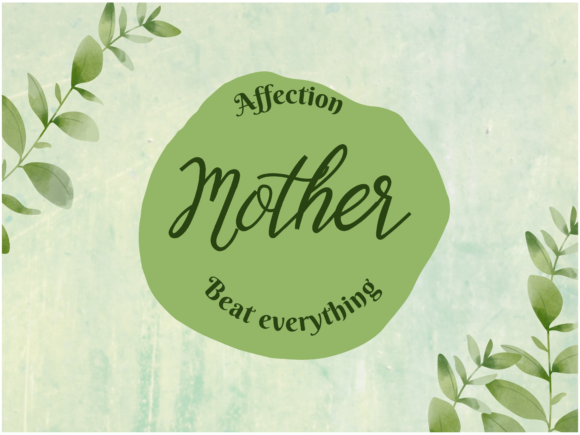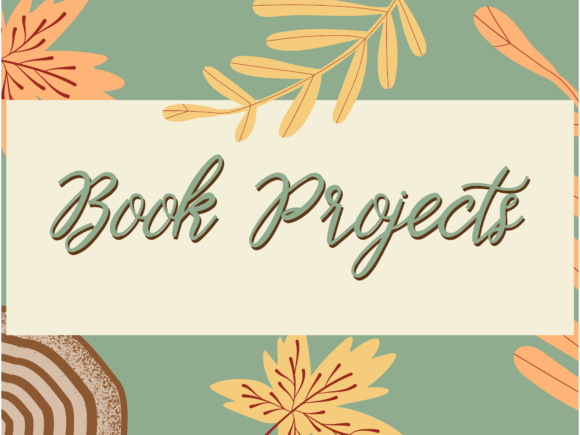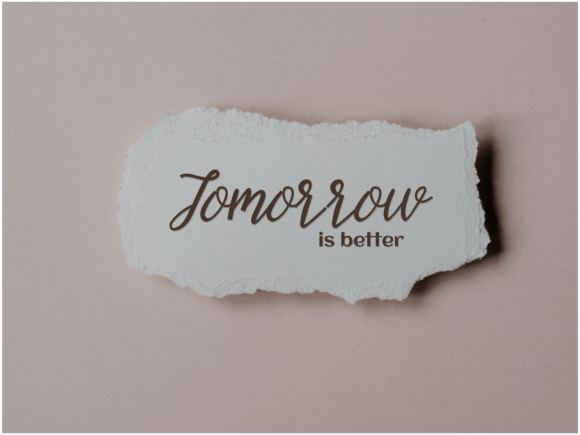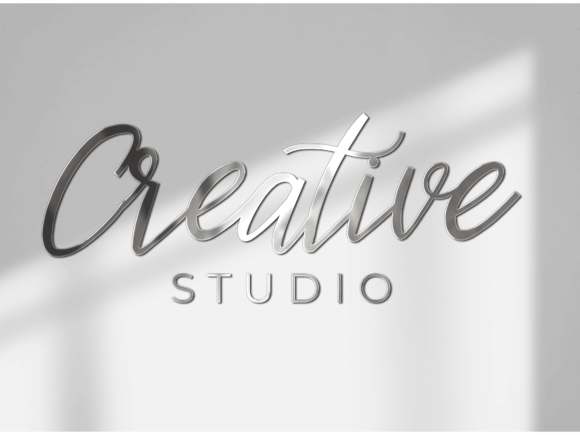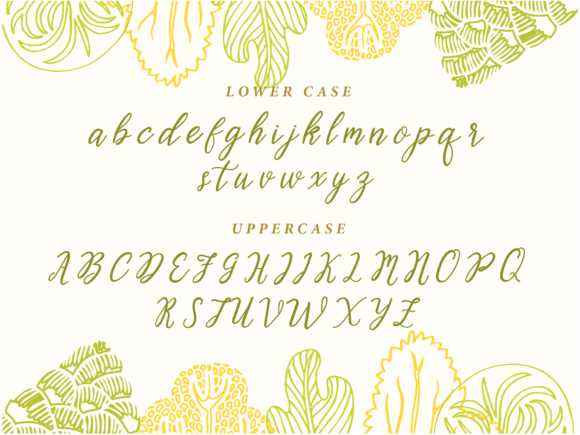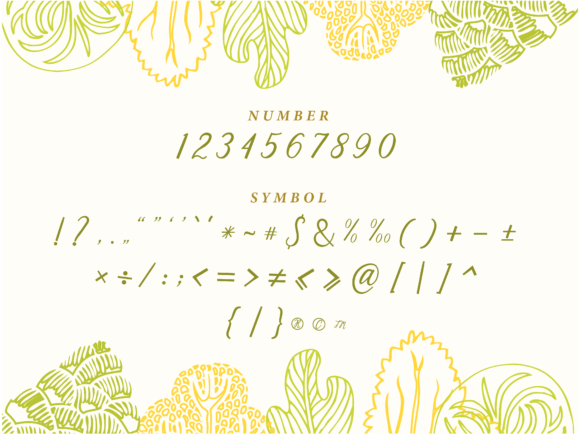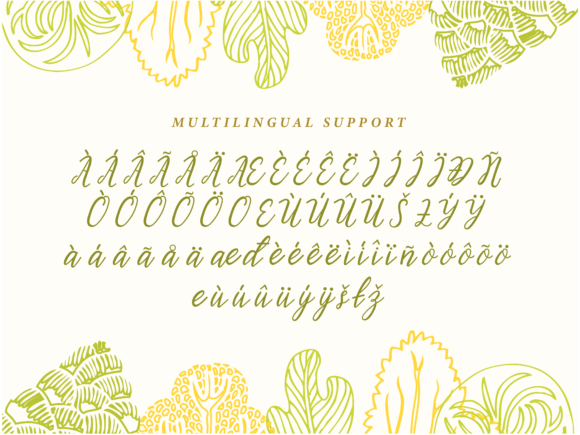
Zeer Beginner Font
About Zeer Beginner Font
Zeer Beginner is a delicate, elegant, and flowing handwritten font. It has beautiful and well-balanced characters and as a result, it matches a wide pool of designs.